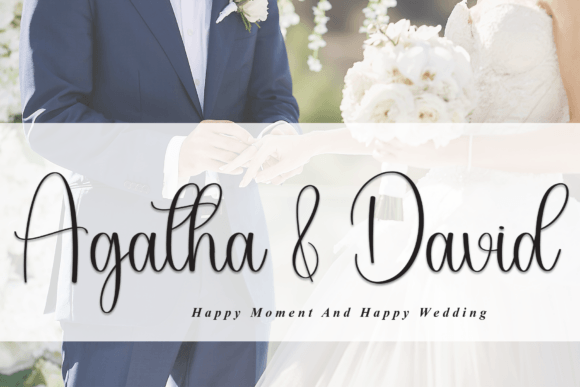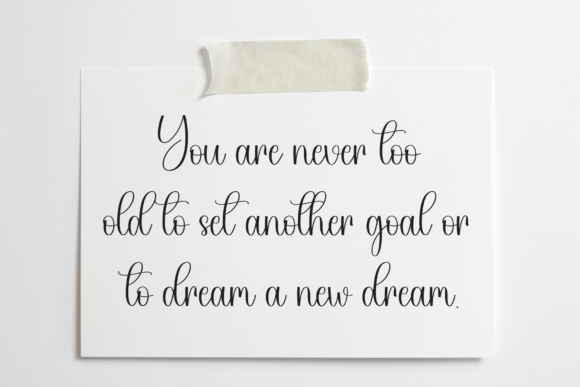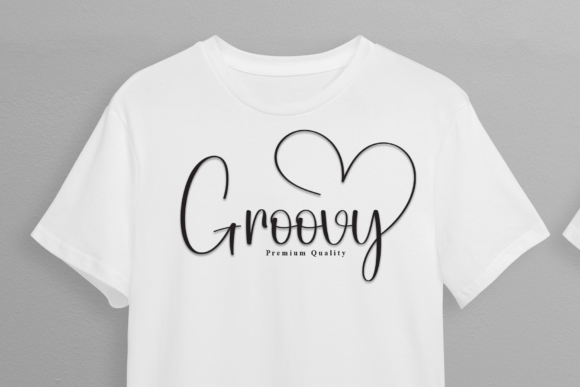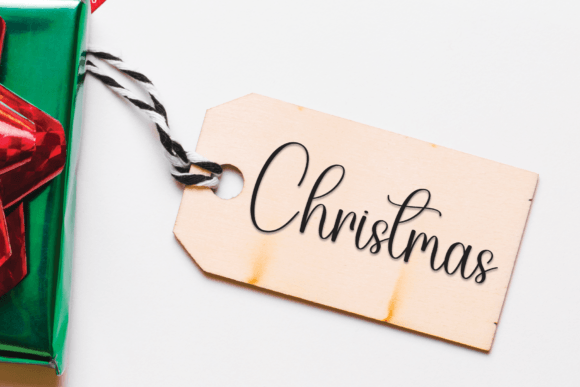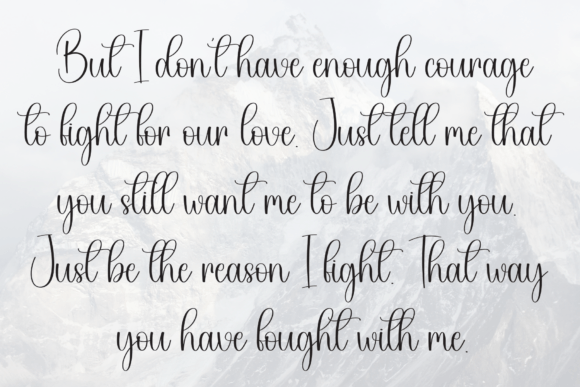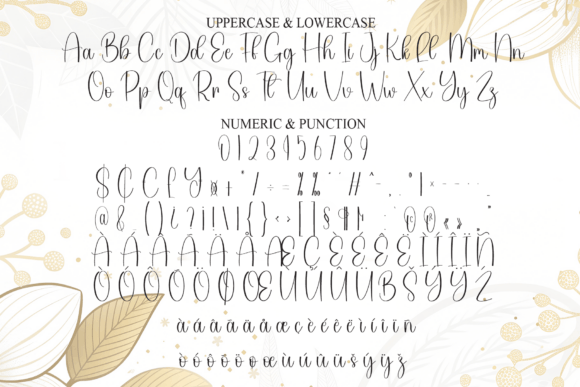
Introducing Happy Newyear Font: Elevate Your Designs with Elegance and Charm
As the clock strikes midnight on New Year’s Eve, the world welcomes a fresh start, filled with hope and promise. What better way to usher in the new year than with a font that embodies the same spirit of elegance and sophistication? Say hello to Happy Newyear Font, a stunning handwritten script font designed to add a touch of refinement and charm to your designs.
The Essence of Happy Newyear Font
Happy Newyear Font is a beautiful, handwritten script font that boasts flowing, graceful curves, perfect for creating stunning invitations, logos, and branding materials. Its delicate strokes bring warmth and creativity to any design, making it an ideal choice for designers and crafters looking to add a personal touch to their projects.
Key Features of Happy Newyear Font
- Elegant and Refined: Happy Newyear Font features elegant, cursive script with flowing curves that exude sophistication and poise.
- Handwritten with Love: This font is carefully crafted to mimic the look and feel of handwritten script, adding a personal touch to your designs.
- Perfect for Invitations: Whether it’s a wedding invitation, birthday party, or New Year’s Eve celebration, Happy Newyear Font is the perfect choice for creating stunning, eye-catching invites.
- Versatile and Adaptable: Use Happy Newyear Font for logos, branding, packaging, and more – its versatility makes it suitable for a wide range of design applications.
- Easy to Read: Despite its elegant and cursive nature, Happy Newyear Font remains easy to read, making it perfect for body text and headlines.
Design Applications for Happy Newyear Font
Happy Newyear Font is an incredibly versatile font that can be used in a variety of design applications, including:
- Wedding Invitations: Add a touch of romance and elegance to your wedding invitations, save-the-dates, and thank-you cards.
- Branding and Logos: Create stunning logos, business cards, and letterheads that showcase your brand’s personality and style.
- Party Decorations: Use Happy Newyear Font to create eye-catching party decorations, including banners, garlands, and DIY crafts.
- Packaging Design: Elevate your packaging design with Happy Newyear Font, perfect for product labels, gift wrapping, and more.
Tips and Tricks for Using Happy Newyear Font
- Pair with Contrasting Fonts: Combine Happy Newyear Font with contrasting fonts to create visual interest and hierarchy in your designs.
- Experiment with Colors: Try pairing Happy Newyear Font with different colors and textures to add depth and personality to your designs.
- Use for Headlines and Titles: Happy Newyear Font is perfect for headlines and titles – use it to create eye-catching and attention-grabbing text.
Happy Newyear Font is a stunning handwritten script font that is sure to elevate your designs with its elegance, charm, and sophistication. Perfect for designers and crafters looking to add a personal touch to their projects, this font is versatile, adaptable, and easy to read. Whether you’re creating invitations, logos, or branding materials, Happy Newyear Font is the perfect choice for anyone looking to add a touch of refinement and style to their designs.